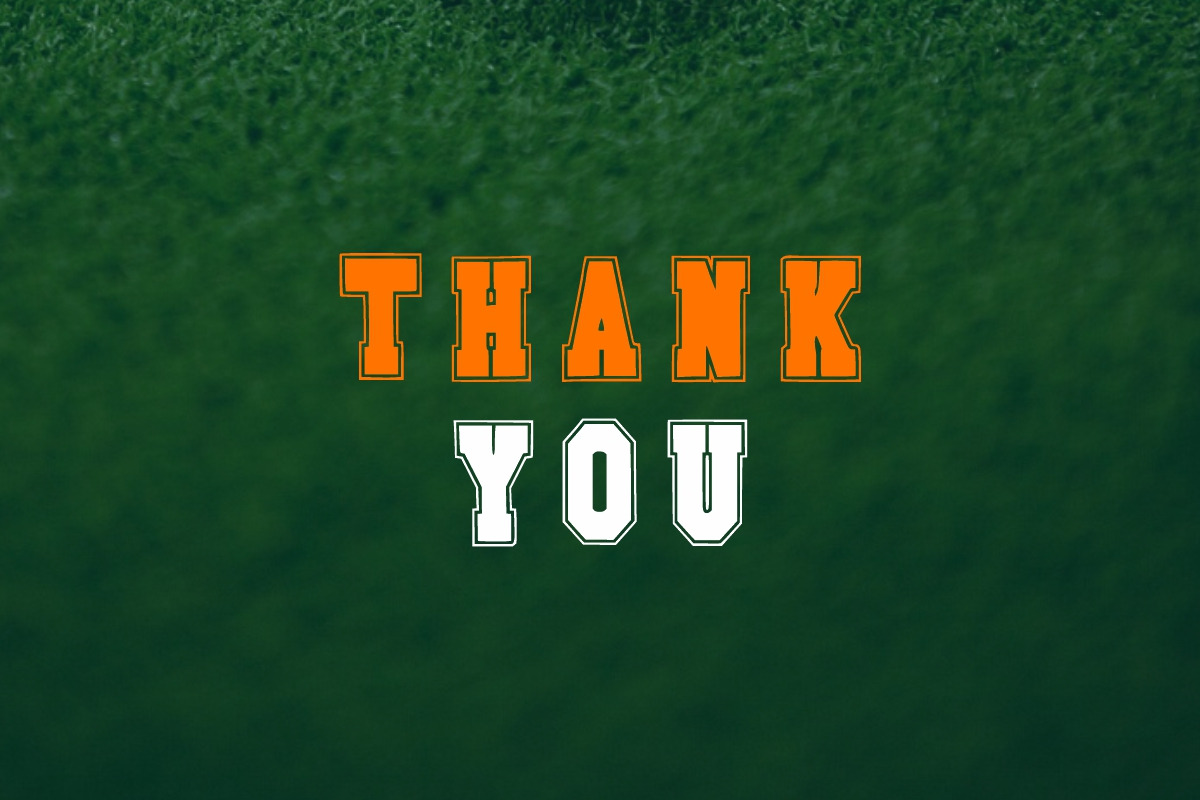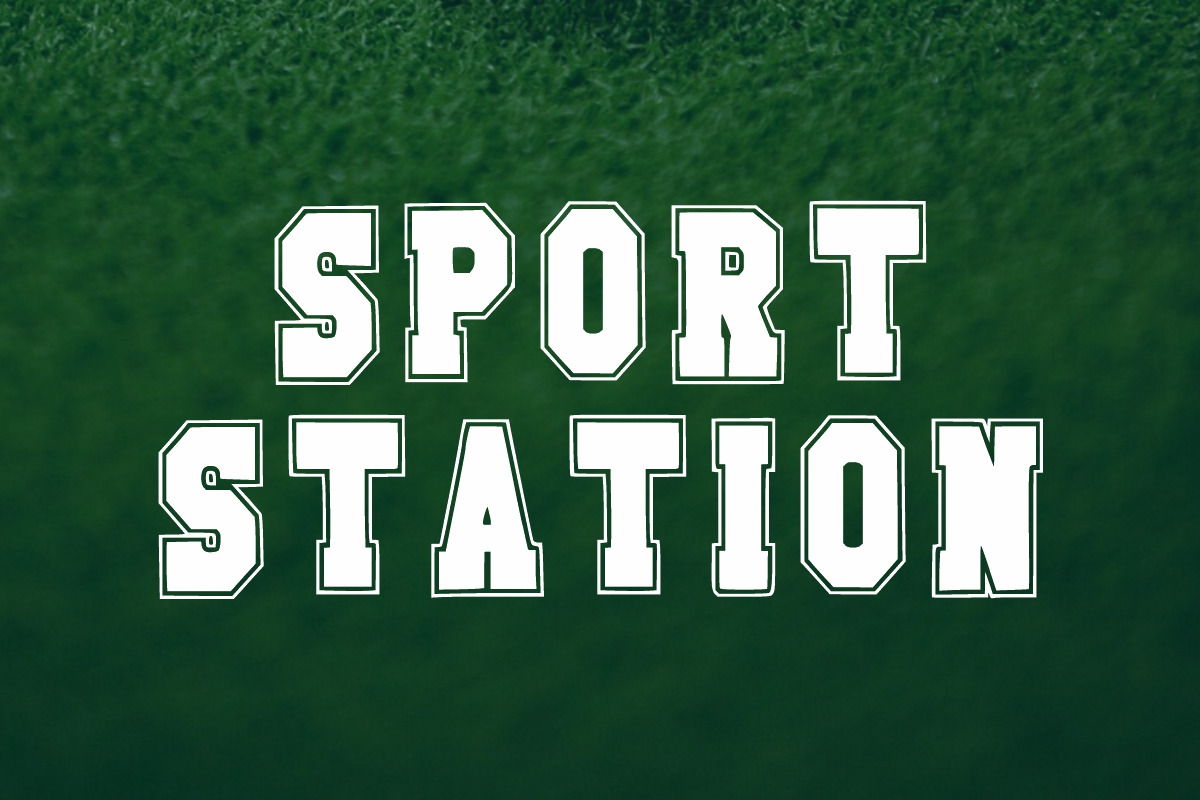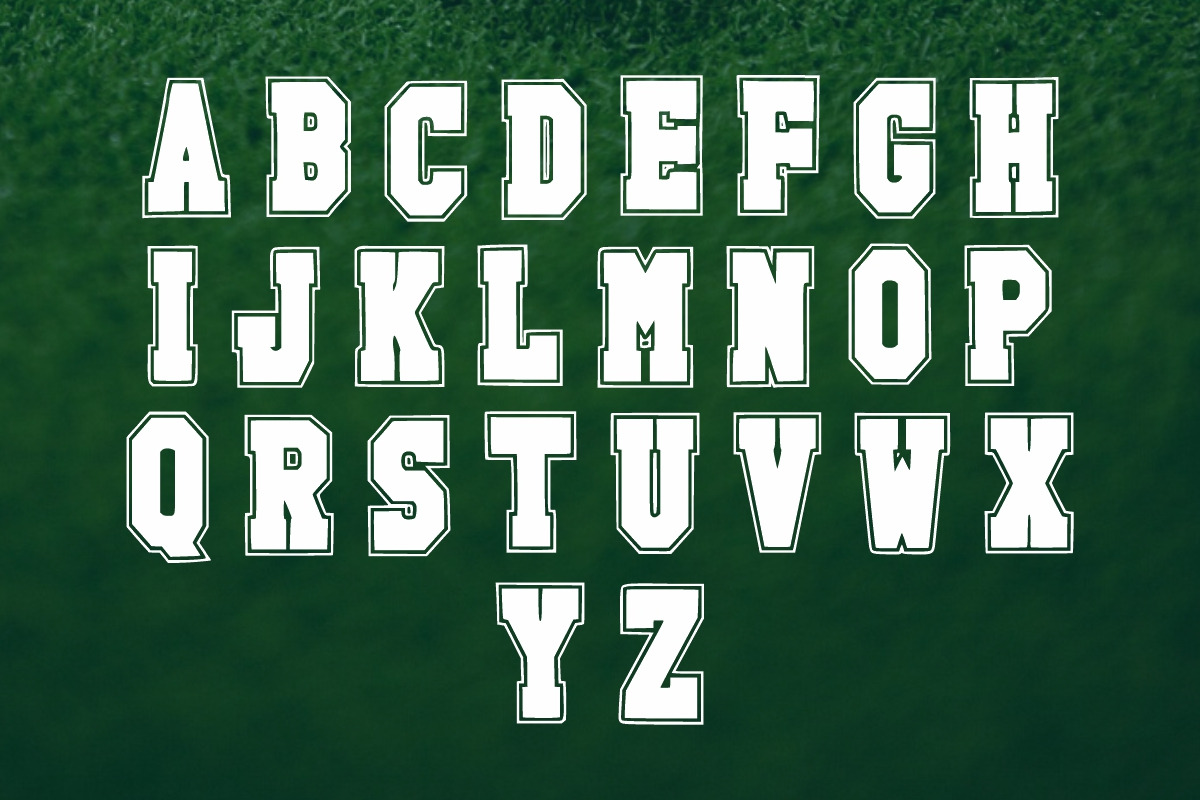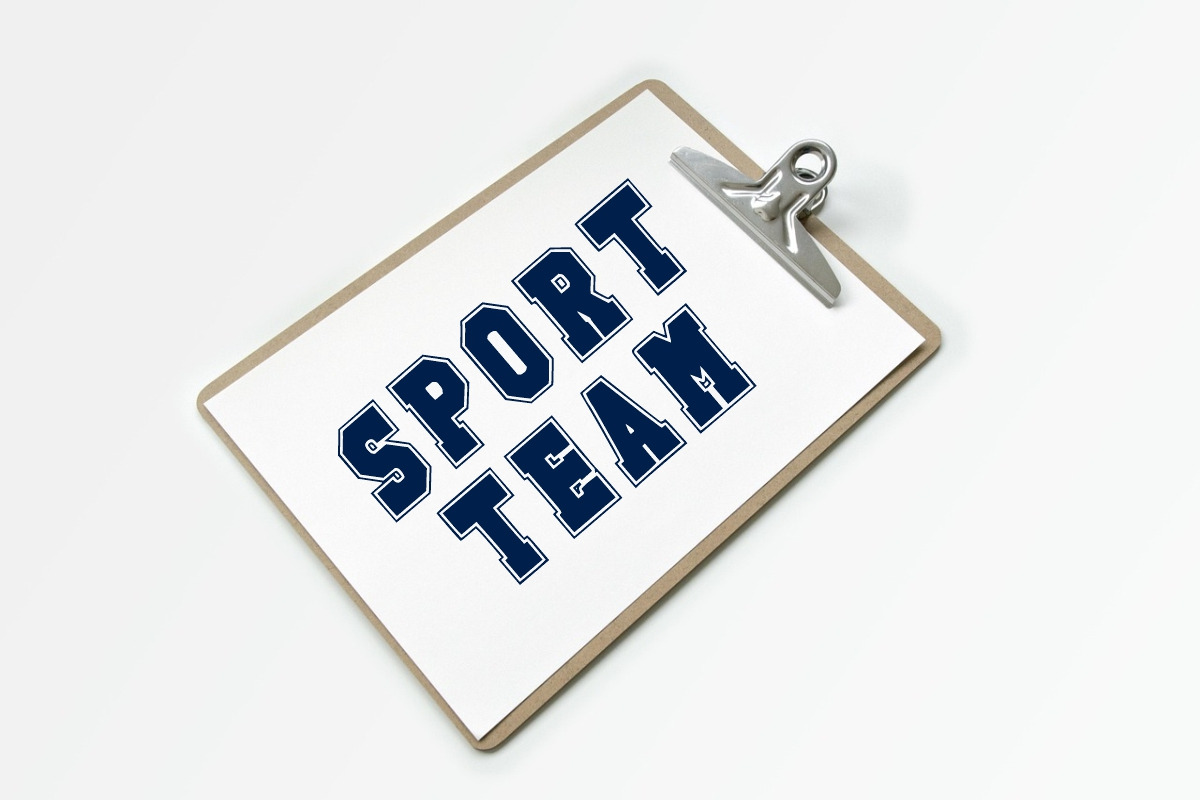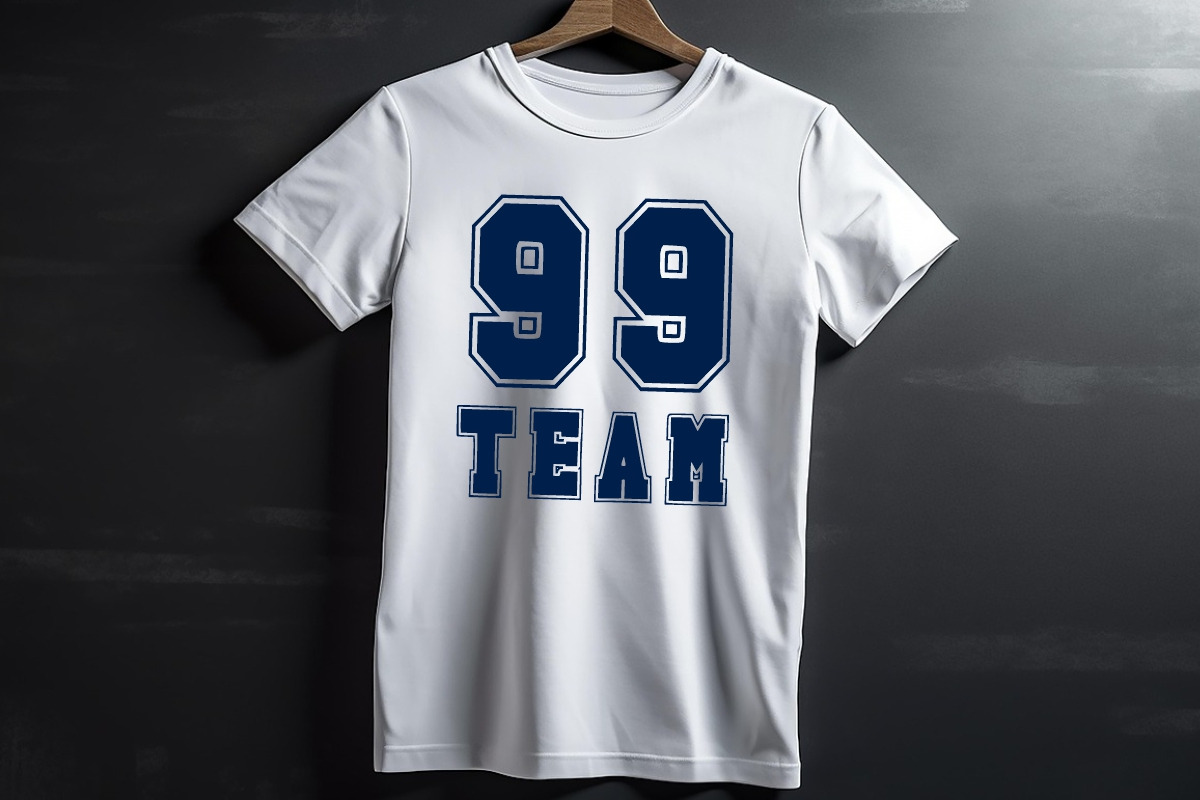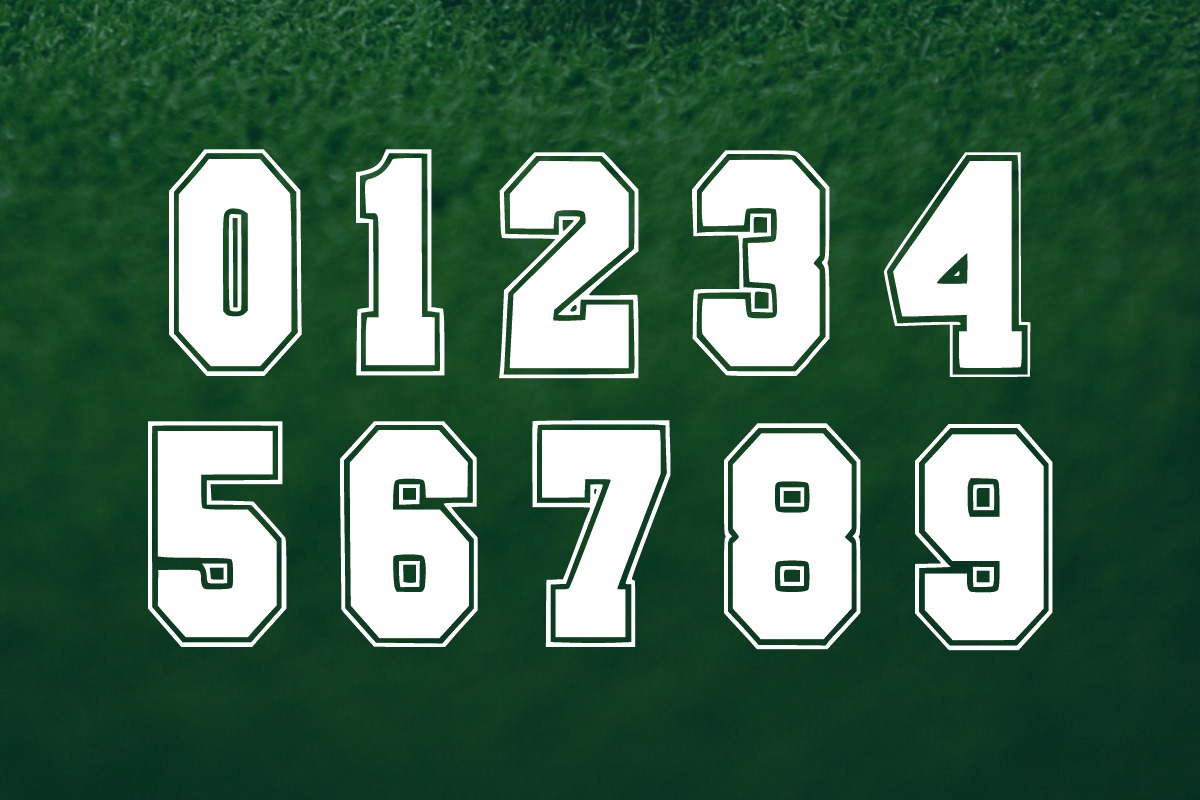
Varsity Champion
Varsity Champion is a bold and energetic display font inspired by the spirit of college sports, team pride, and competitive strength. With its strong letterforms and classic varsity style, this typeface captures the excitement of the game and the determination of champions. Perfect for sports branding, team jerseys, posters, event flyers, school projects, and motivational designs, Varsity Champion adds a sense of power and tradition to any project. Its sturdy, block-style shapes make it ideal for headlines and logos that need to stand out with authority. Whether you’re designing for a championship event, creating a spirited logo, or adding athletic flair to your work, Varsity Champion brings victory to your typography.